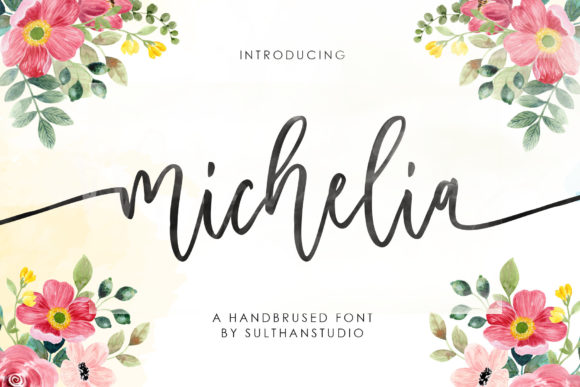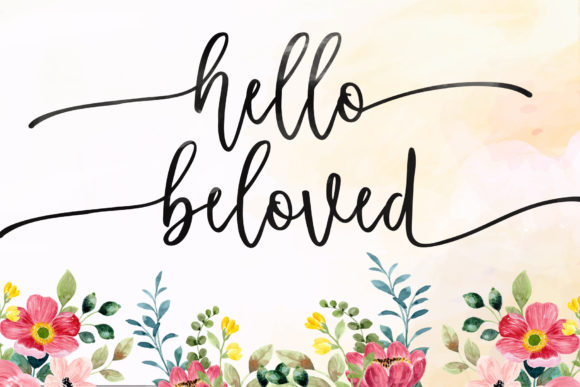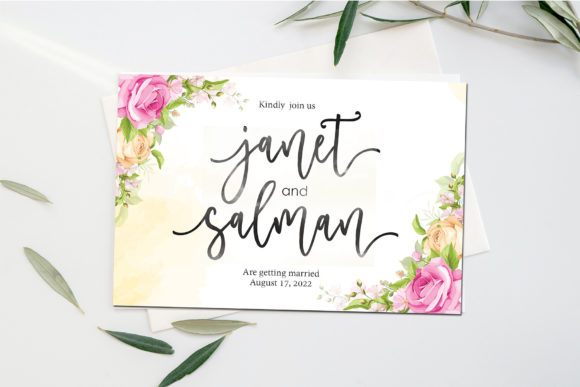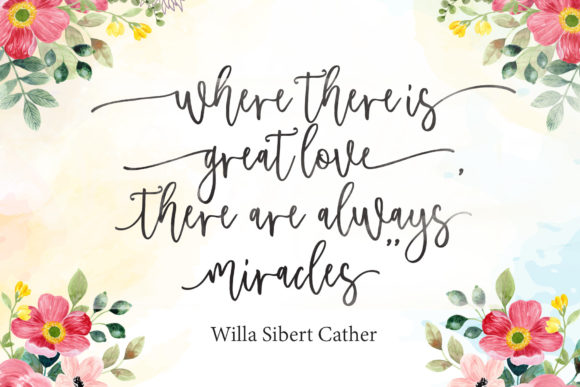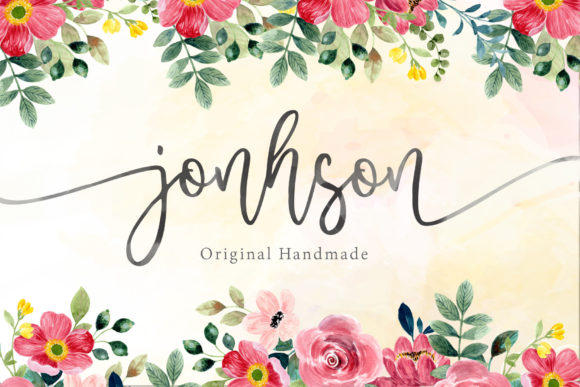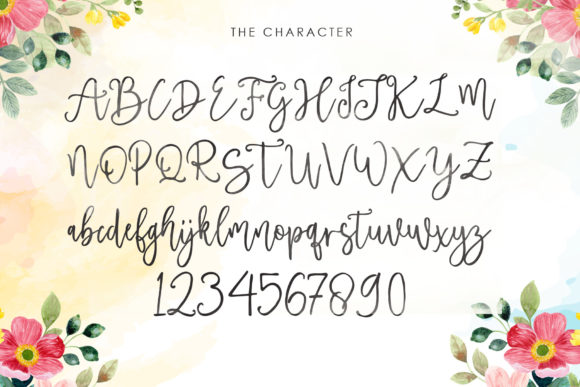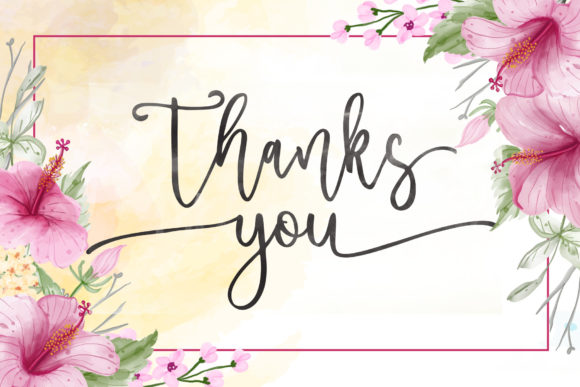
Michelia Font
About Michelia Font
Introducing “Michelia,” a sweet hand-brushed script font that adds a touch of elegance and charm to your creative projects. With its delicate and varied baseline, Michelia is the perfect choice for projects that require a personal and refined touch.
Michelia’s hand-brushed style gives it a natural and organic feel, making it ideal for delicate and heartfelt designs. Whether you’re creating wedding invitations, birthday cards, thank you notes, or any other project that requires a touch of elegance, Michelia will enhance your designs with its graceful and flowing letterforms.
The varied baseline of Michelia adds visual interest and creates a dynamic rhythm to your text. Each letter is carefully crafted, capturing the beauty of hand-brushed calligraphy. The result is a font that exudes sophistication and captures the essence of elegance.
Michelia’s versatility allows it to be used in a variety of creative projects. Its elegant and refined appearance makes it suitable for wedding stationery, logo designs, branding materials, social media graphics, and more. The font’s natural and handwritten style adds a personal touch, creating a connection with your audience and conveying your message with sincerity.
With Michelia, you can easily add a touch of elegance and refinement to your designs. Its beautiful and flowing letterforms make it a standout choice for projects that require a delicate and heartfelt approach. Whether you’re expressing love, gratitude, or celebrating special moments, Michelia will elevate your designs and create a lasting impression.
In conclusion, Michelia is a sweet hand-brushed script font with an elegant and varied baseline. Its delicate and refined style makes it perfect for delicate projects, wedding invitations, birthday cards, thank you notes, and other creative projects that require a personal touch. Embrace Michelia’s elegance and charm to create beautiful designs that leave a lasting impression.